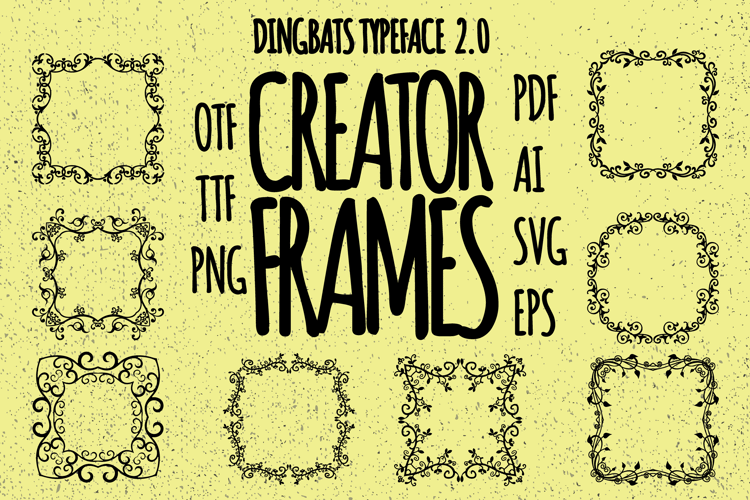
Frames Creator 2.0 Font
๐จ Font Name: [Creator Frames 2.0] by Minimalist Art Studio
๐จ Font Description: Creator Frames 2.0 is a decorative dingbats frames generator font featuring ornate vector framesโperfect for branding, packaging, and editorial embellishment.